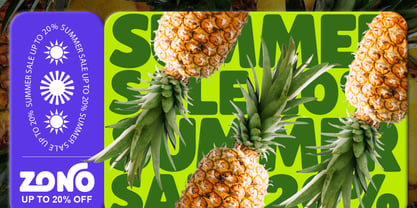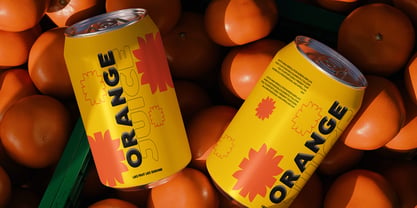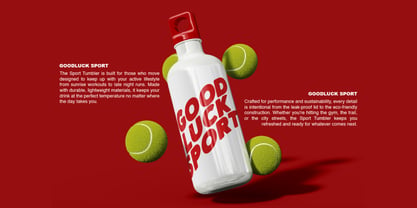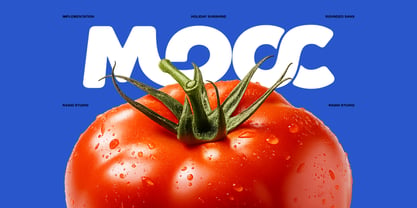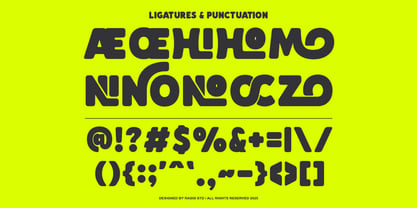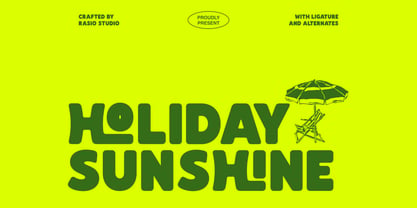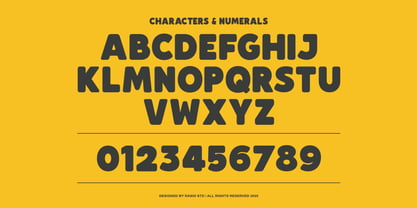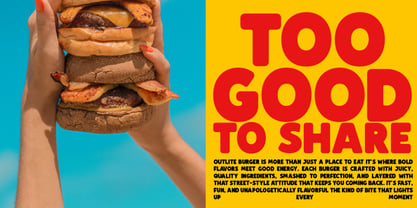
Holiday Sunshine
by Rasio Studio
Holiday Sunshine is a bold rounded display typeface designed to radiate warmth, joy, and playful confidence. Built with soft curves, thick strokes, and friendly proportions, this font delivers a strong yet approachable personality perfect for vibrant branding and eye-catching headlines. Holiday Sunshine is ideal for summer campaigns, beach-themed branding, food packaging, kids products, festival posters, tropical events, social media graphics, playful logos, merchandise design, and bold marketing visuals.